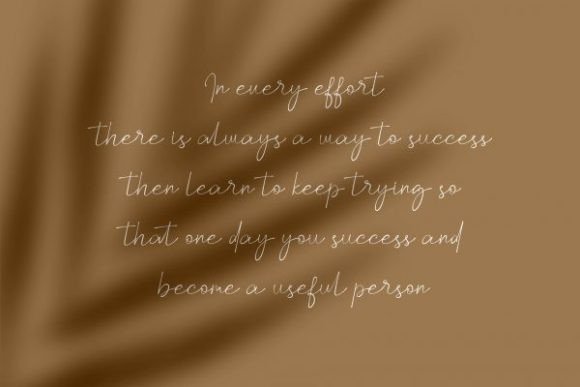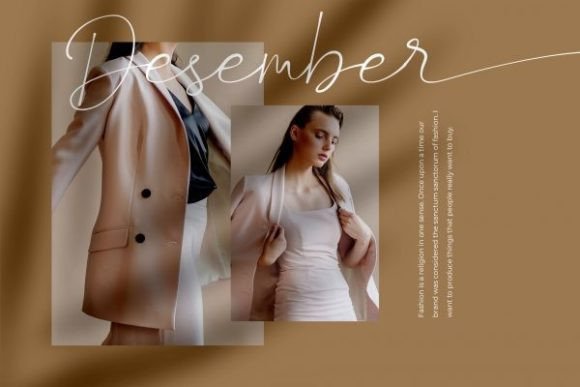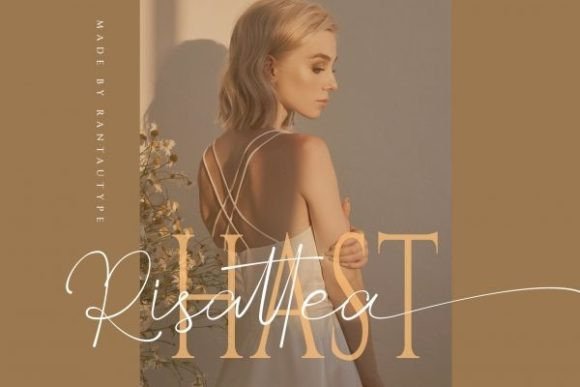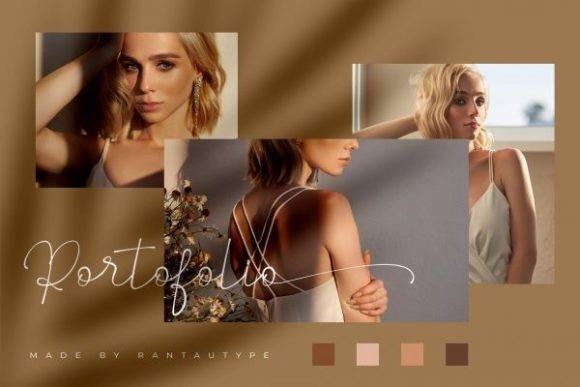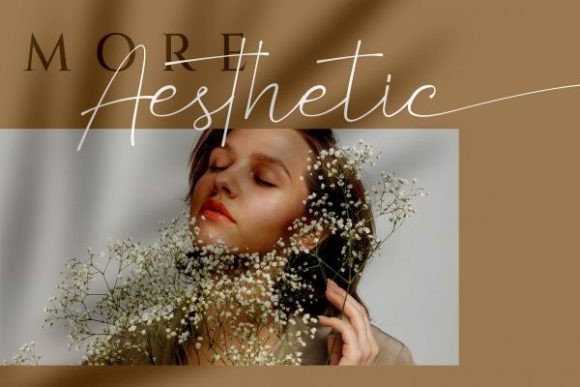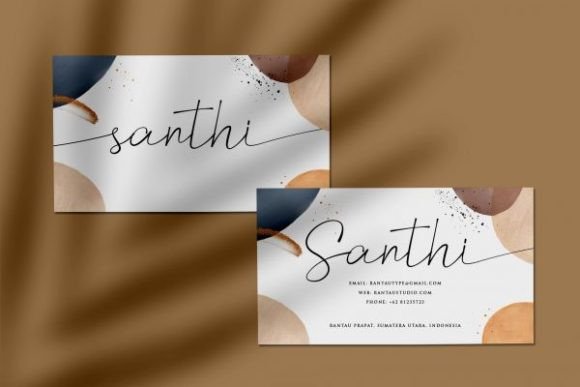
Introduction to Melliora Font
Do you remember that moment when you finally found the perfect font for your creative project? The one that makes your design pop, yet remains subtle and professional? For many designers, that moment is a game-changer. And for those who are still searching, we’re excited to introduce you to the Melliora Font – a stylish and authentic script font that’s about to take your work to the next level.
With its modern, readable, and stylish signature style, Melliora Font is the perfect design resource for a wide range of projects. Whether you’re creating watermarks for photography, designing a signature logo, or crafting quotes for album covers, this versatile font has got you covered. And with its PUA encoding, accessing all the glyphs and swashes is a breeze – making it a valuable addition to any designer’s toolkit.
Key Features of Melliora Font
- High-quality design resource perfect for creative projects, offering a unique and elegant style.
- Features a clean and modern aesthetic, ideal for use in logos, typography, and other design applications.
Honest Review: Melliora Font
I recently came across the Melliora Font and was immediately drawn to its unique design. As a designer, I’m always on the lookout for high-quality fonts that can elevate my creative projects. The Melliora Font delivers in this regard, offering a beautiful and elegant script font that’s perfect for adding a touch of sophistication to any design.
One of the standout features of the Melliora Font is its transparent background, which makes it easy to work with and allows for seamless integration into any design. I also appreciate that this font is a free download, making it an excellent resource for designers on a budget.
- Unique and elegant script design ✨
- High-quality font suitable for creative projects ✨
- Transparent background for easy design integration ✨
- Only one style available ⚠️
- No bold or italic variations available ⚠️
Overall, I’m impressed with the Melliora Font and would highly recommend it to designers looking for a high-quality, free font to add to their design arsenal. While it may have some limitations, its unique design and transparent background make it a valuable resource for any creative project.
Getting the Most Out of Melliora Font
Use the Melliora Font with a transparent background to create stunning visual effects. Experiment with different font sizes and styles to add depth and interest to your designs.
The Melliora Font is ideal for creating eye-catching headings, titles, and logos. Its high quality and versatility make it a popular choice among designers working on a variety of creative projects.